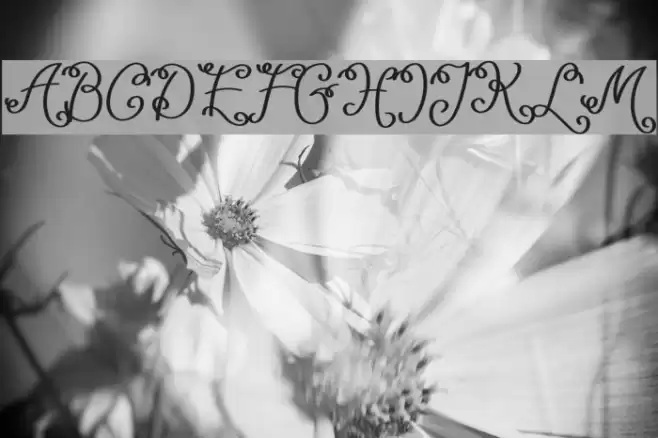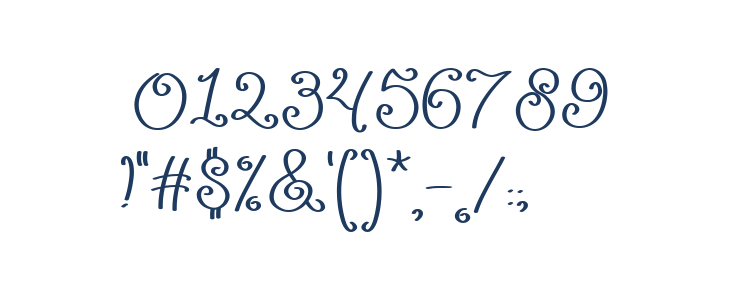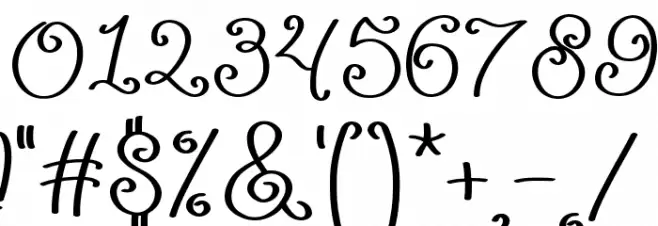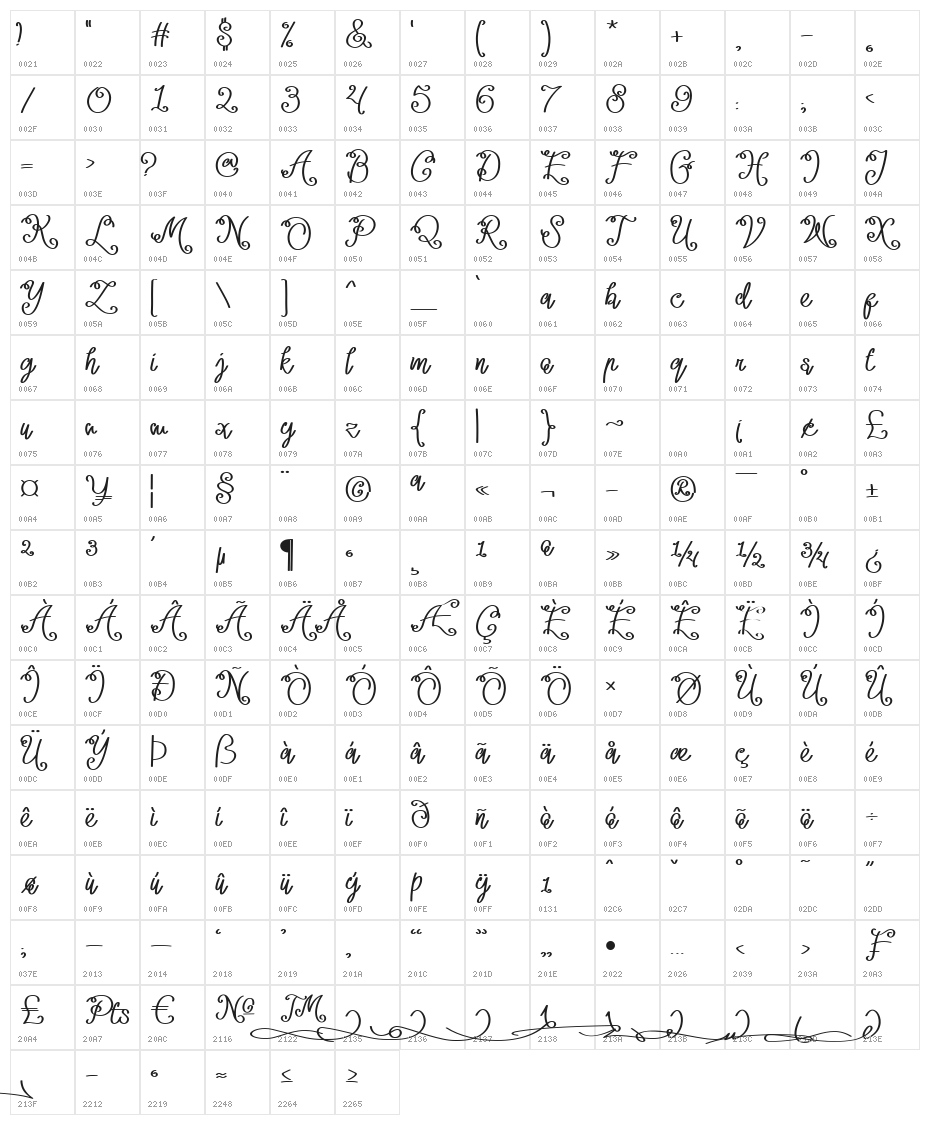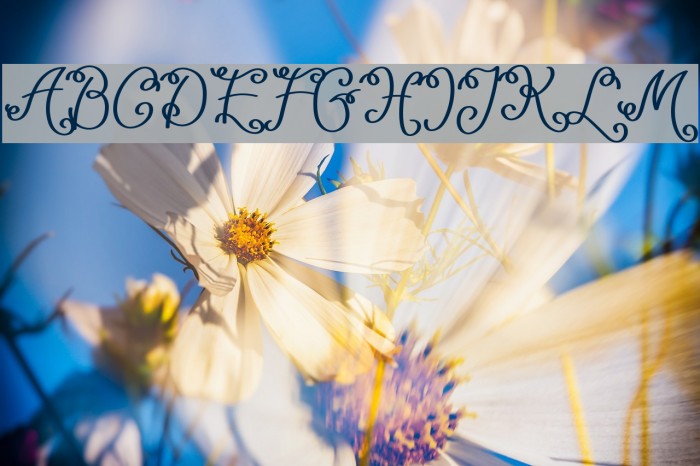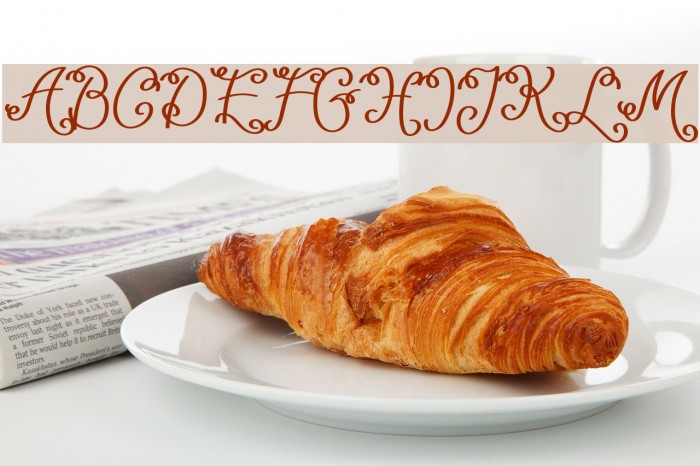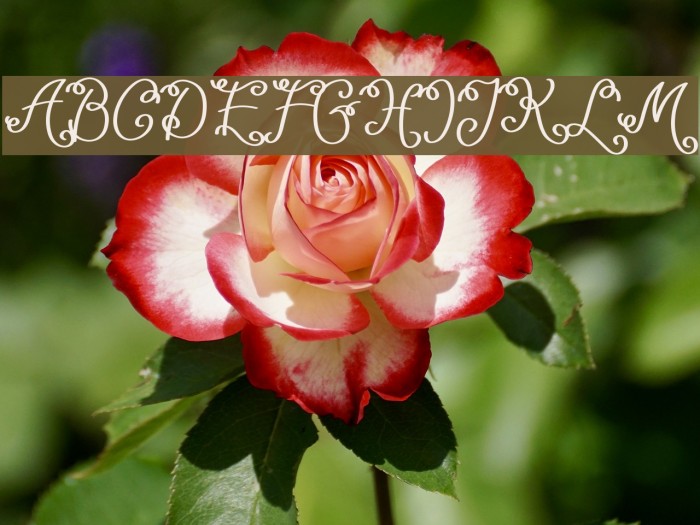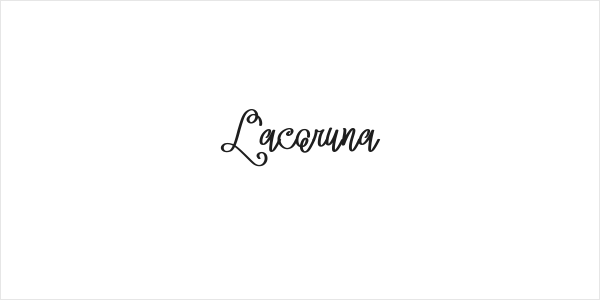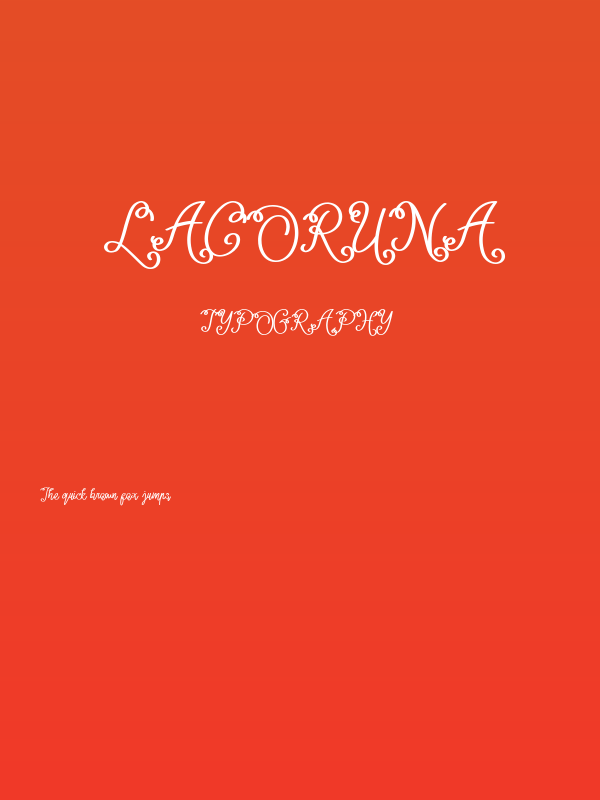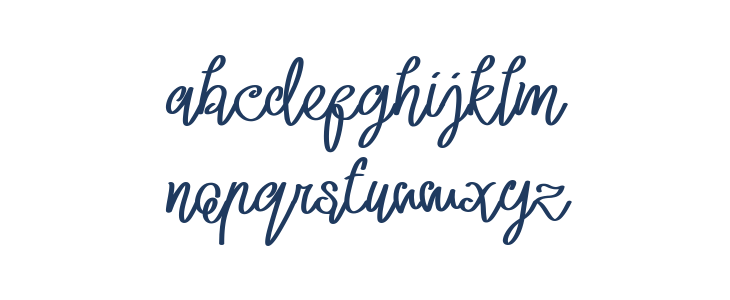
Lacoruna Font
Lacoruna Description
This font features an elegant and decorative script style with intricate swirls and loops that give it a whimsical and artistic flair. The uppercase letters are particularly ornate, with each character adorned with unique embellishments that enhance its visual appeal. The lowercase letters maintain a flowing, cursive style that complements the uppercase set, offering a harmonious balance between complexity and readability. The numerals and special characters are equally stylized, incorporating similar decorative elements that unify the overall design. This font's intricate details make it suitable for creative and expressive projects where a touch of elegance and sophistication is desired.
An elegant, decorative script font with intricate swirls and loops from Uncategorized fonts.
- Proposed Projects: Ideal for wedding invitations, greeting cards, branding, and artistic posters.
- Use Case: Logos, Headlines, Artistic projects